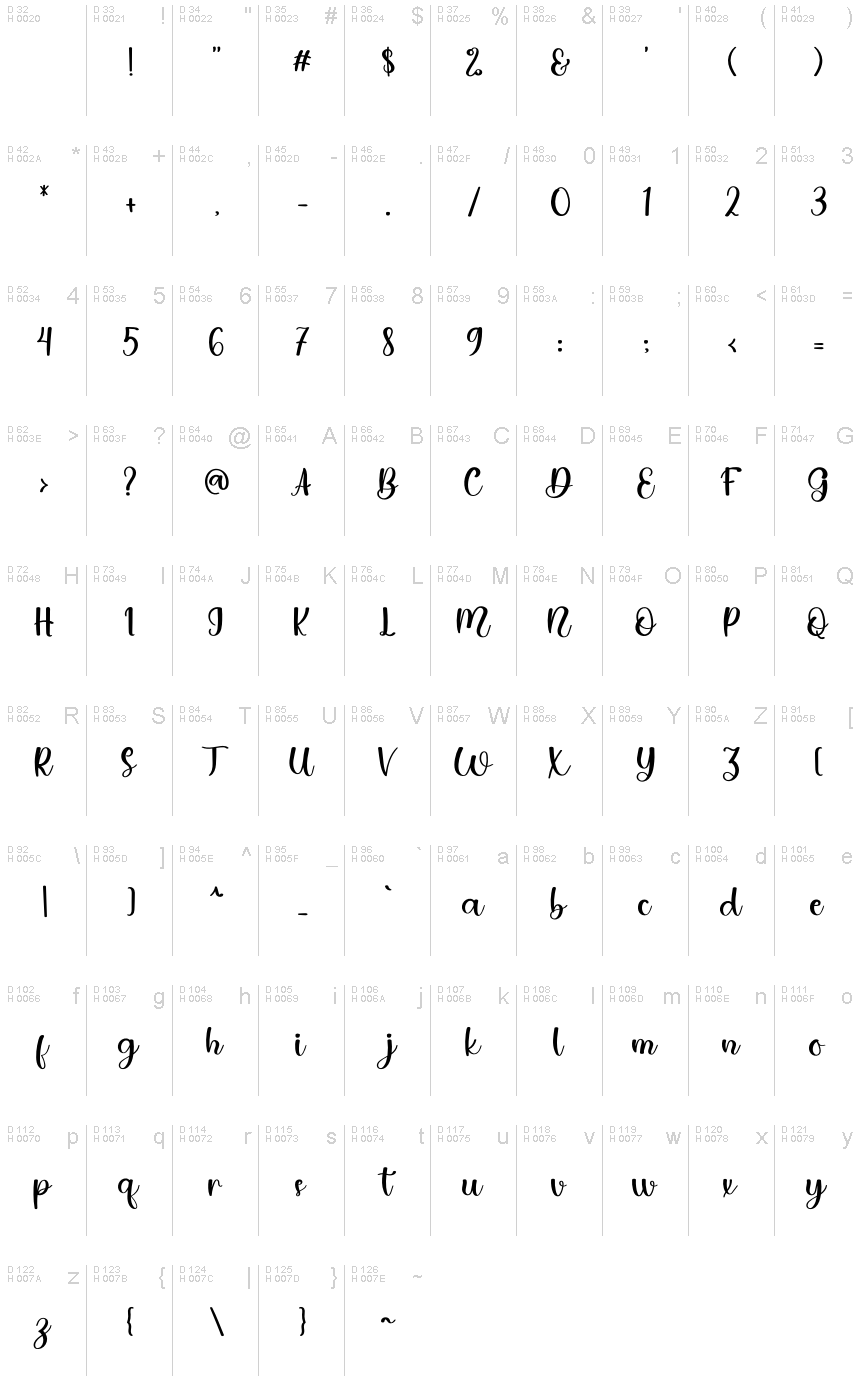
Berry
Berry font from PiPi Creative is a flowing handwritten typeface exhibiting delightful playful curves and elegant appearance. This free font has a bold built, informal vibe, and cursive characters which make it ideal for any youth-targeted design project like branding and packaging or even personal handwritten diary transcription.
Use this versatile modern font in premium packaging projects, creating signs for boutiques, restaurants or fashion stores, banners, posters, magazines covers spreads/headlines. Or simply use it in your new red wine logo design.